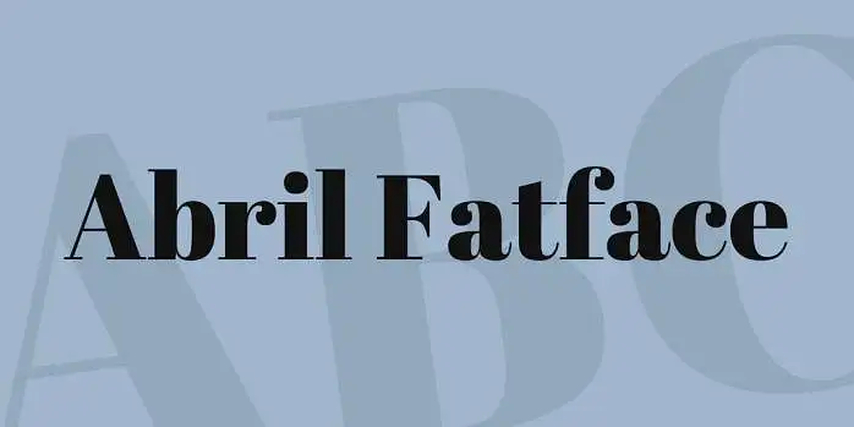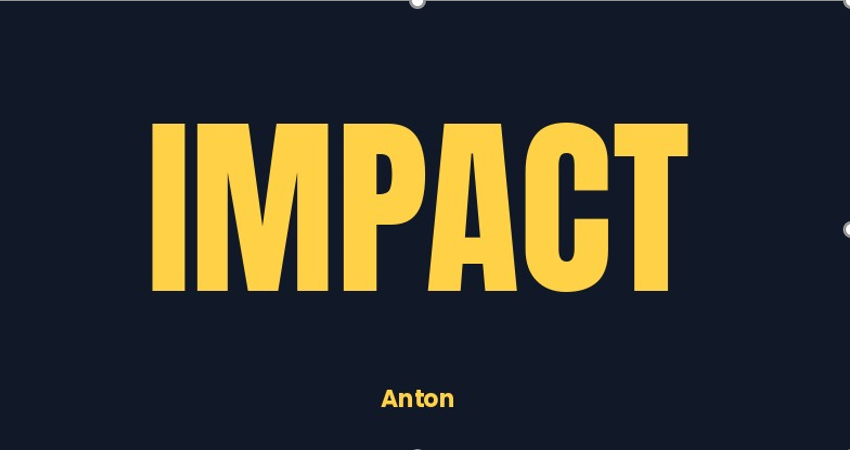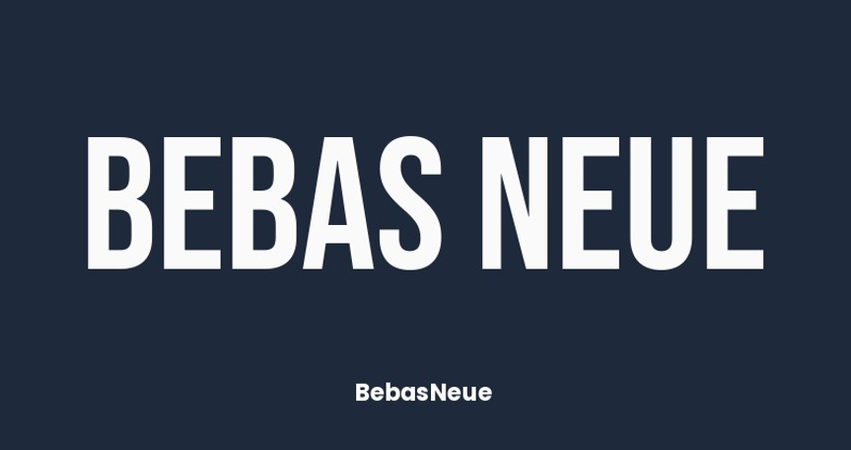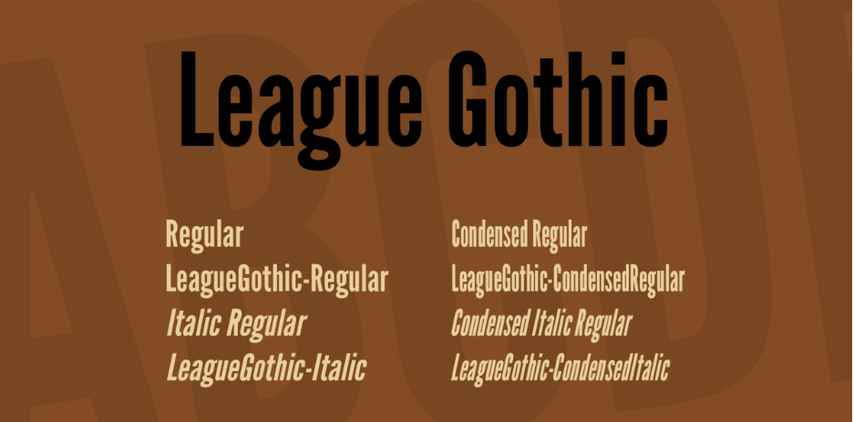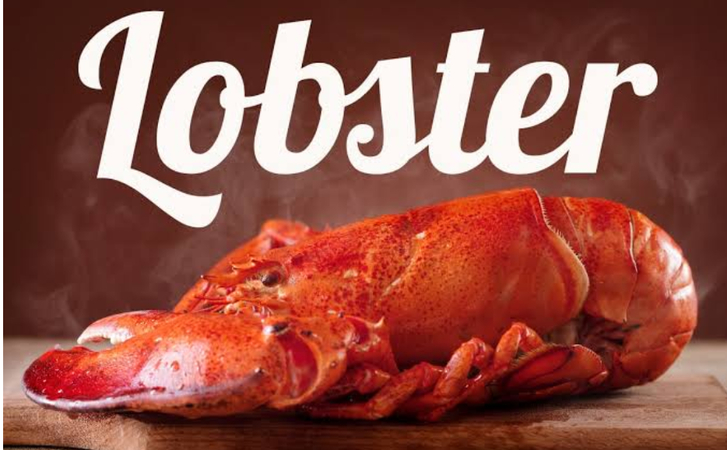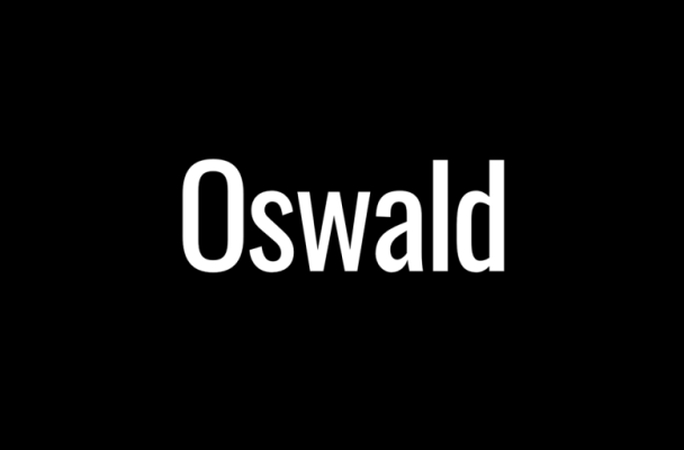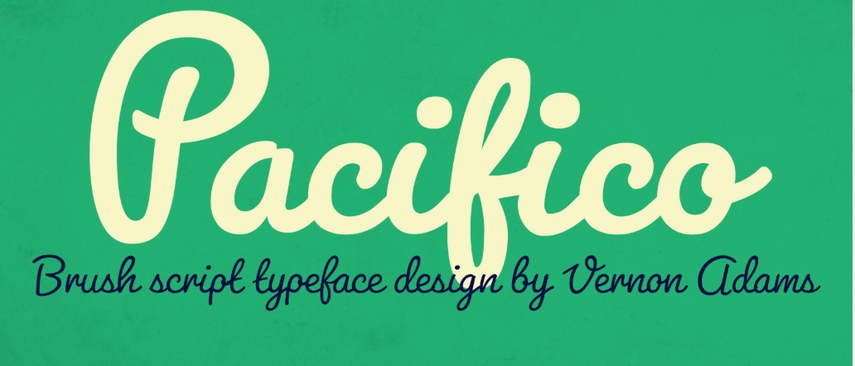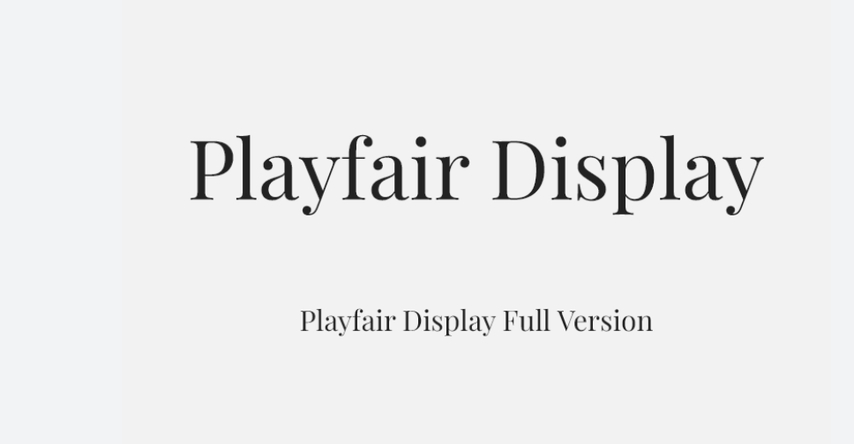
Best Fonts for Posters: Create Eye-Catching Designs for Social Media
To capture attention, selecting the right fonts for social media graphics and poster designs is necessary. If you're creating an Instagram graphic or promotional flyers, typography determines how you'll convey the message.
This post explores the best fonts for posters across bold display, creative decorative categories, and modern sans serif, with AI optimization tips.
Part 1: What Makes a Good Font for a Poster?
Selecting an impactful typeface is a key branding decision that ensures your message hits the viewer immediately.
1. Readability
Legibility is the most essential factor in design. A poster font must remain readable from a distance or on small mobile screens. Clean geometric letterforms and balanced spacing ensure instant audience comprehension without causing visual strain.
2. Visual Impact
Strong contrast and bold, heavy letterforms create immediate visual dominance. The right display font establishes a natural focal point that guides your audience directly toward your main message.
3. Match the Poster Style
Typography must align seamlessly with the overall brand identity. For example, luxury branding demands elegant serifs, tech events require modern sans-serifs, and music festivals thrive on creative decorative fonts.
Part 2: 15 Best Fonts for Posters and Social Media Posts
Different poster objectives require tailored font styles. Here is a curated selection of top-performing typefaces.
1. Best Bold Fonts for Poster Titles (1-5)
1. Bebas Neue
A popular condensed display font with clean, bold all-caps proportions, ideal for high-impact headlines.
Bebas Neue bold condensed font preview.
2. Anton
A modern display sans-serif designed for web advertising, delivering maximum screen visibility.
Anton heavy sans-serif typeface specimen.
3. Impact
A classic design choice with thick strokes, making it one of the best fonts for posters needing bold dominance.
Impact display font showcasing headline lettering.
4. Montserrat (Black Weight)
Offers geometric perfection inspired by urban signage, giving posters a clean, contemporary feel.
Montserrat Black font preview showing geometric letters.
5. League Gothic
A tall, condensed, revived font that fits longer titles onto a single line without sacrificing size.
League Gothic condensed title font sample.
2. Best Modern Fonts for Instagram Posts (6-10)
6. Futura
A timeless geometric sans-serif font suited for lifestyle graphics, tech posts, and minimal fashion flyers.
Futura geometric typography specimen.
7. Oswald
Tailored for pixel grids, ensuring crisp readability on mobile feeds and smartphones.
Oswald font preview for Instagram graphics.
8. Poppins
A friendly geometric sans-serif with rounded curves, perfect for carousels and infographics.
Poppins font styling on clean post template.
9. Playfair Display
A high-contrast serif brings elegance and sophistication to quote posts and announcements.
Playfair Display serif lettering specimen.
10. Raleway
An elegant, airy sans-serif with subtle flourishes suited for boutique visual storytelling.
Raleway font preview for brand posts.
3. Cool Decorative Fonts for Creative Posters (11-15)
11. Abril Fatface
A heavy display serif inspired by 19th-century posters, ideal for art exhibits and concert flyers.
Abril Fatface decorative serif for art poster.
12. Lobster
A lively script font with bold, fluid connections, perfect for festival flyers and casual events.
Lobster script typography preview.
13. Pacifico
A casual brush script adds warmth and personality to creative social media graphics.
Pacifico handwriting script font layout.
14. Bungee
A heavy urban display typeface crafted for street posters and vibrant pop-art visuals.
Bungee urban poster font rendering.
15. Righteous
A futuristic art-deco font bringing energy to gaming flyers, tech launches, and music posters.
Righteous futuristic font preview.
Part 3: How to Choose the Best Font for a Poster Title?
Balancing visual appeal with practical function is key. Use this summary table for quick comparison.
PrincipleWhat It MeansQuick Tip
Keep the title readableYour headline should be legible from across a room.Avoid thin or overly script-heavy fonts for main titles.
Create font hierarchyTitles, subtitles, and body text should look clearly different.Pair one bold display font with one simple sans-serif.